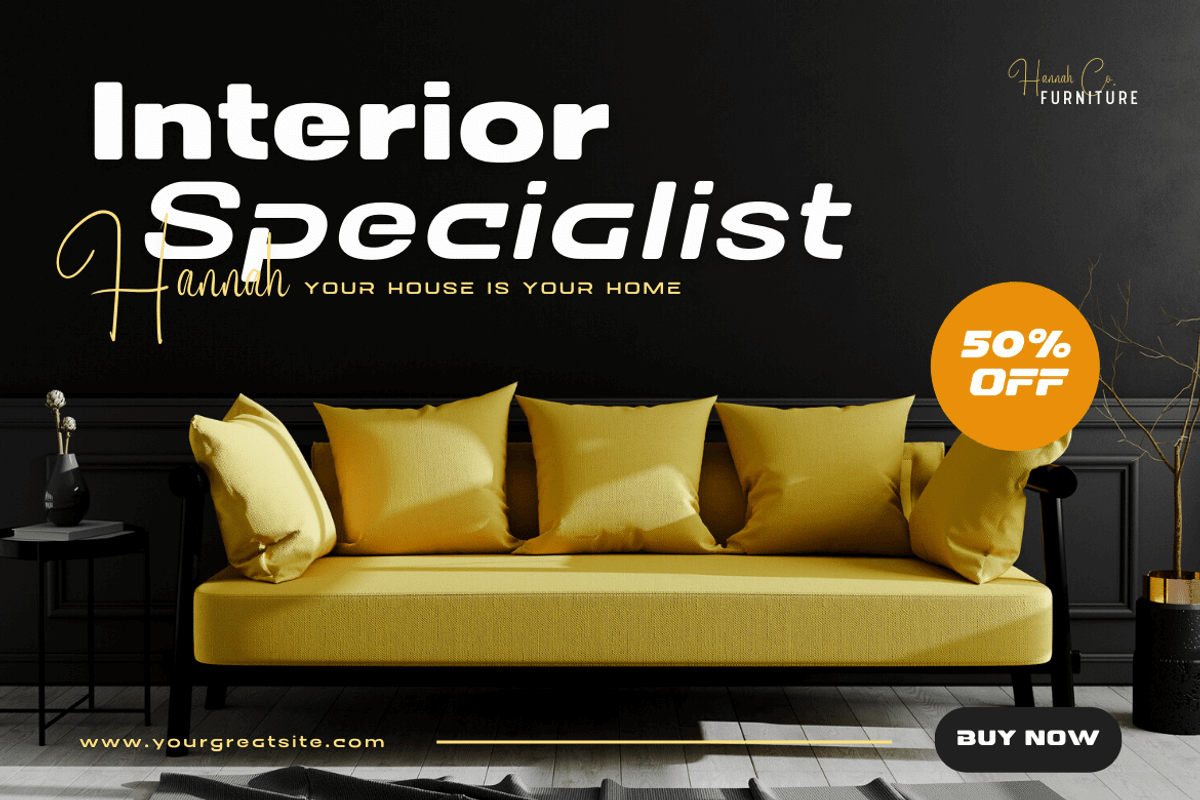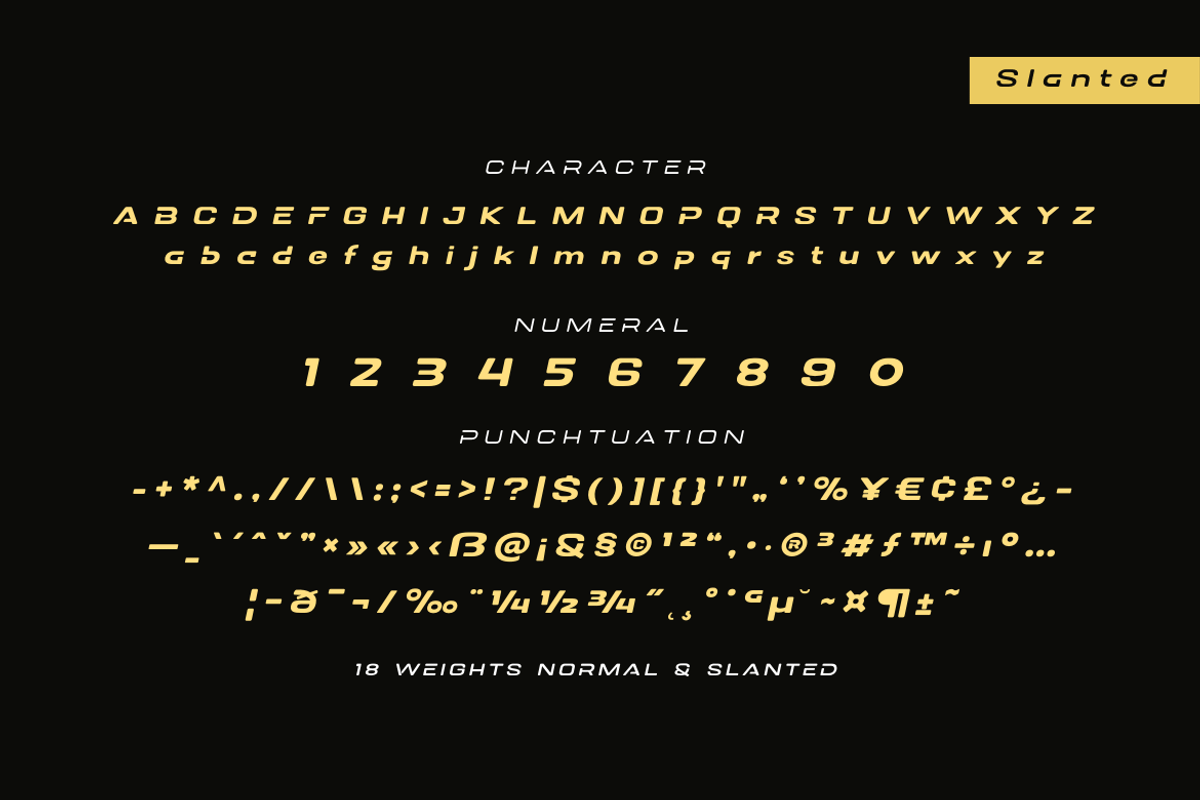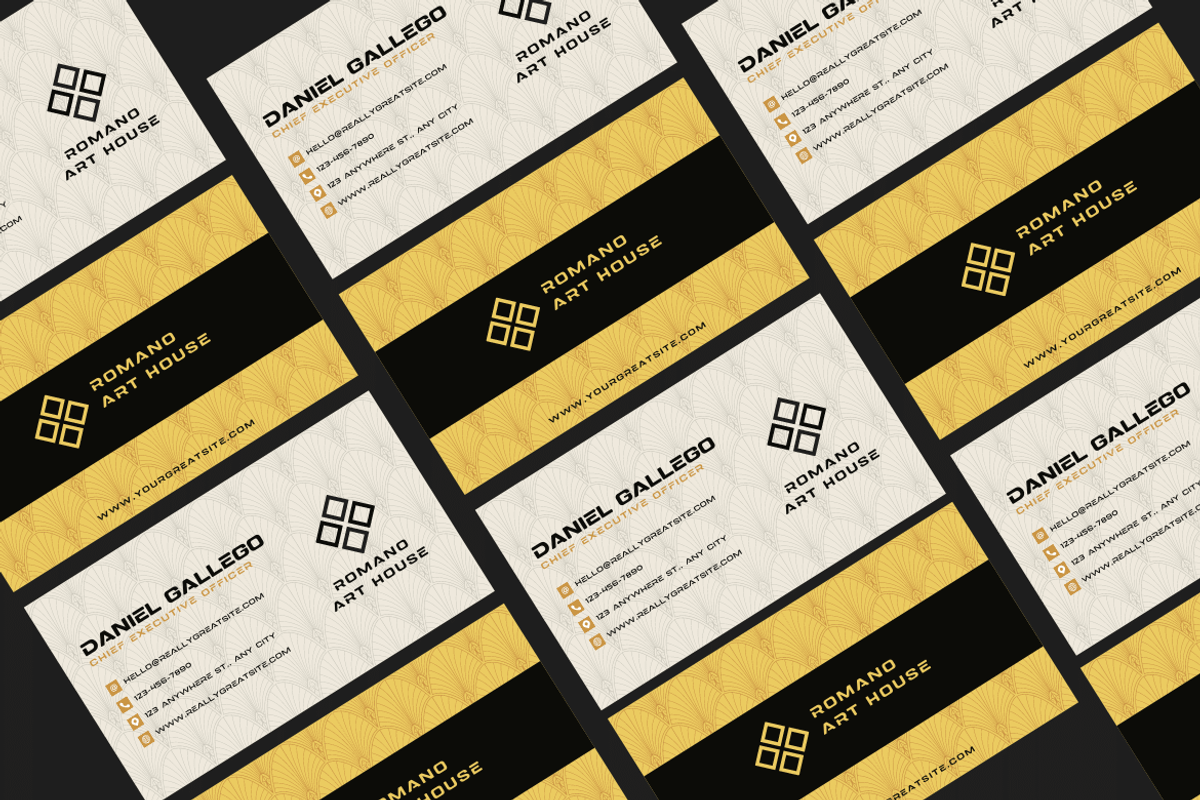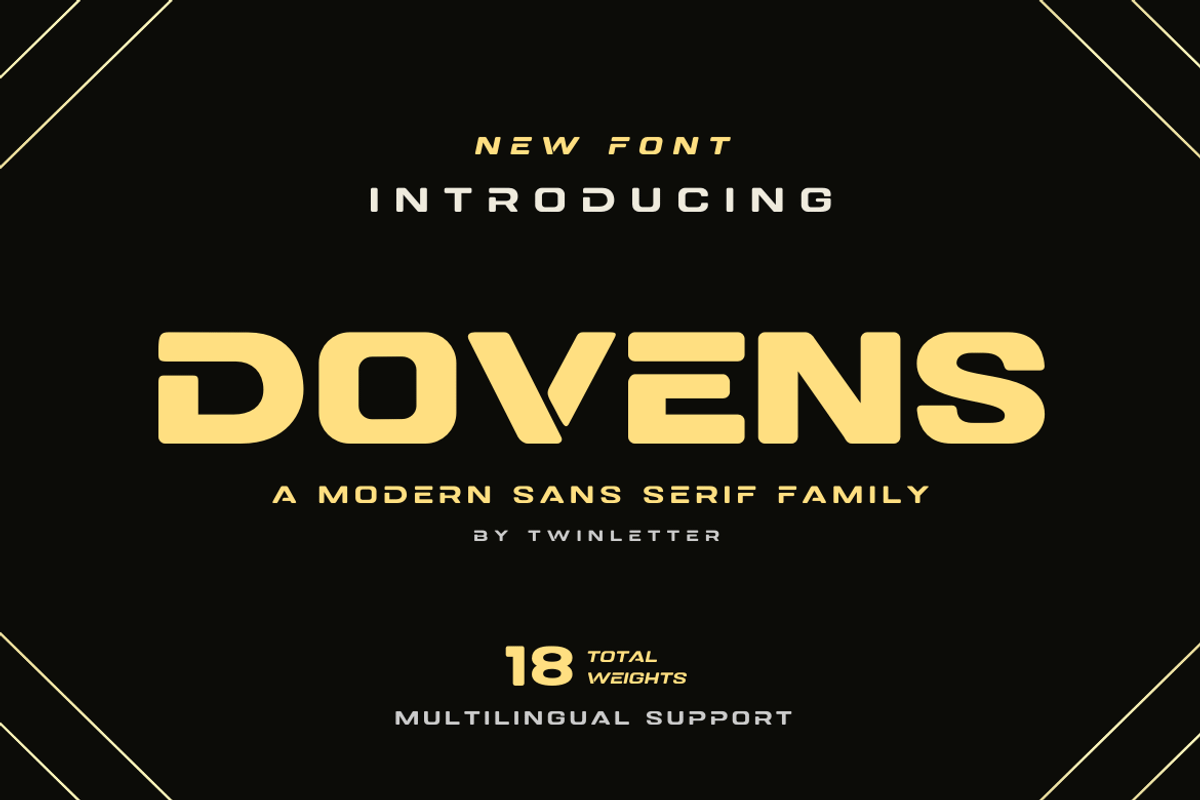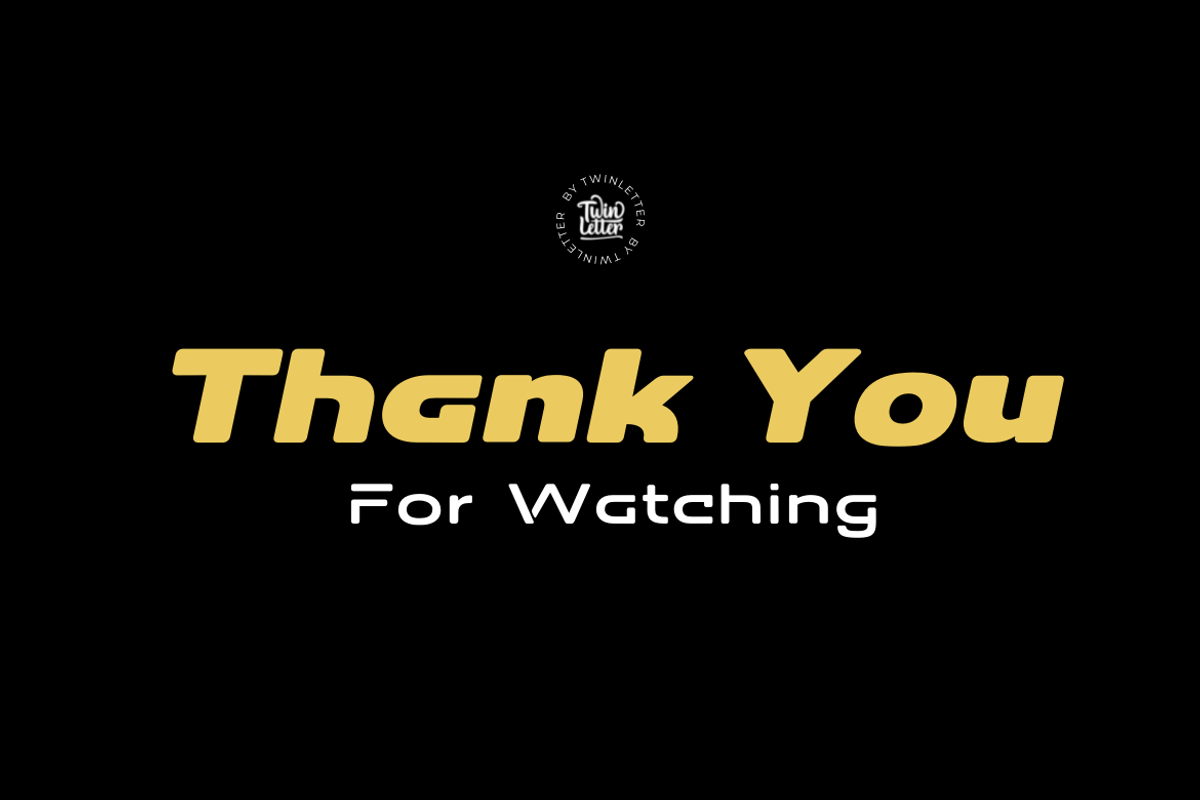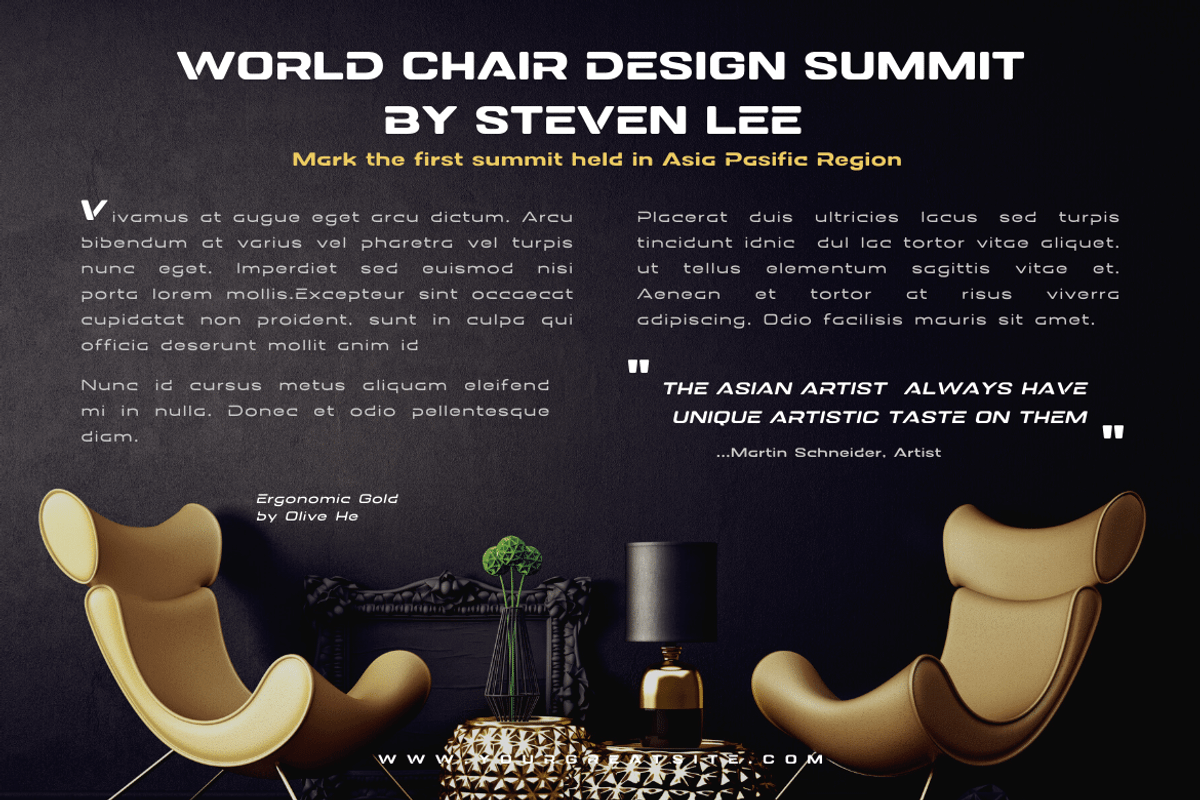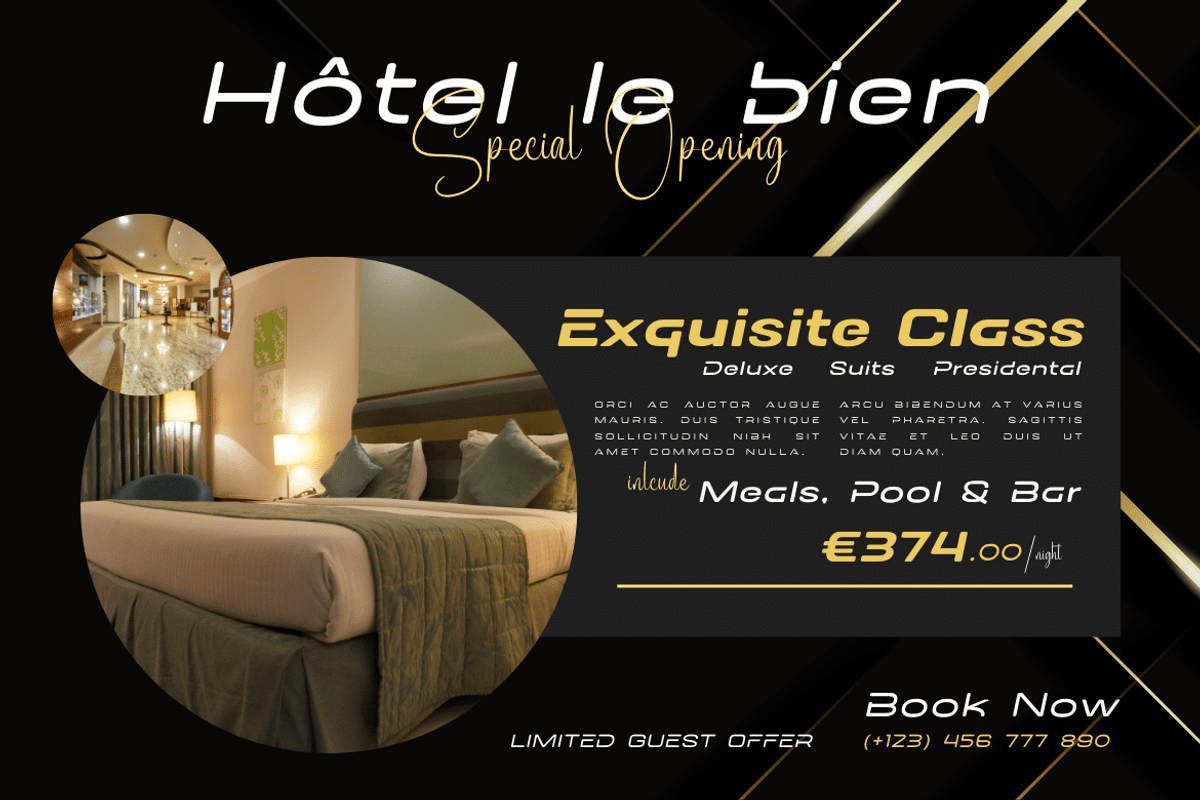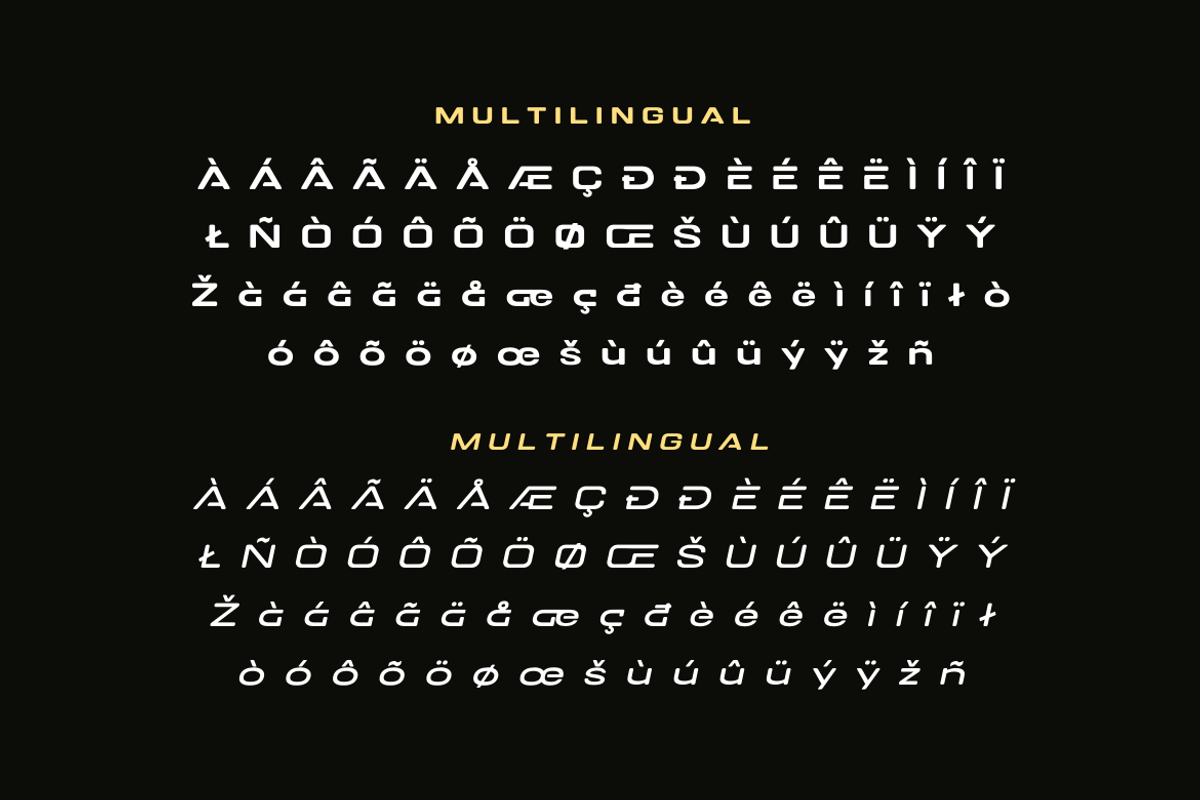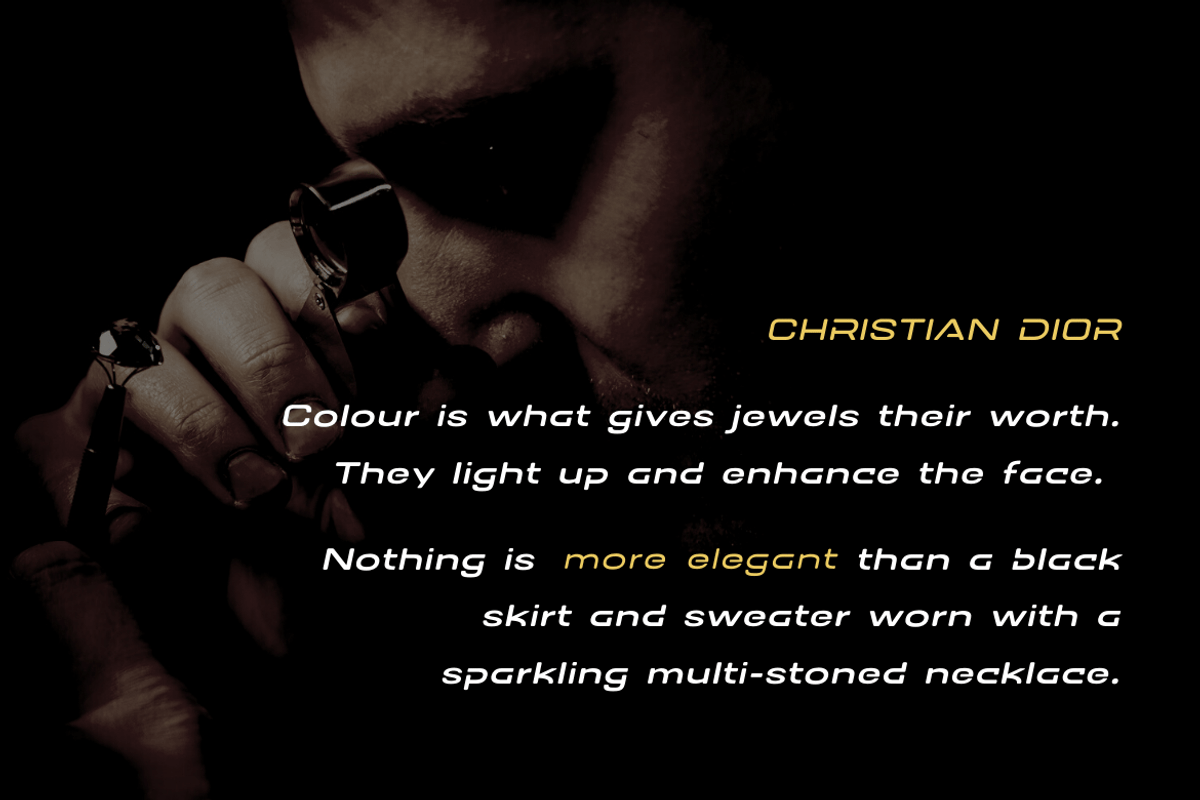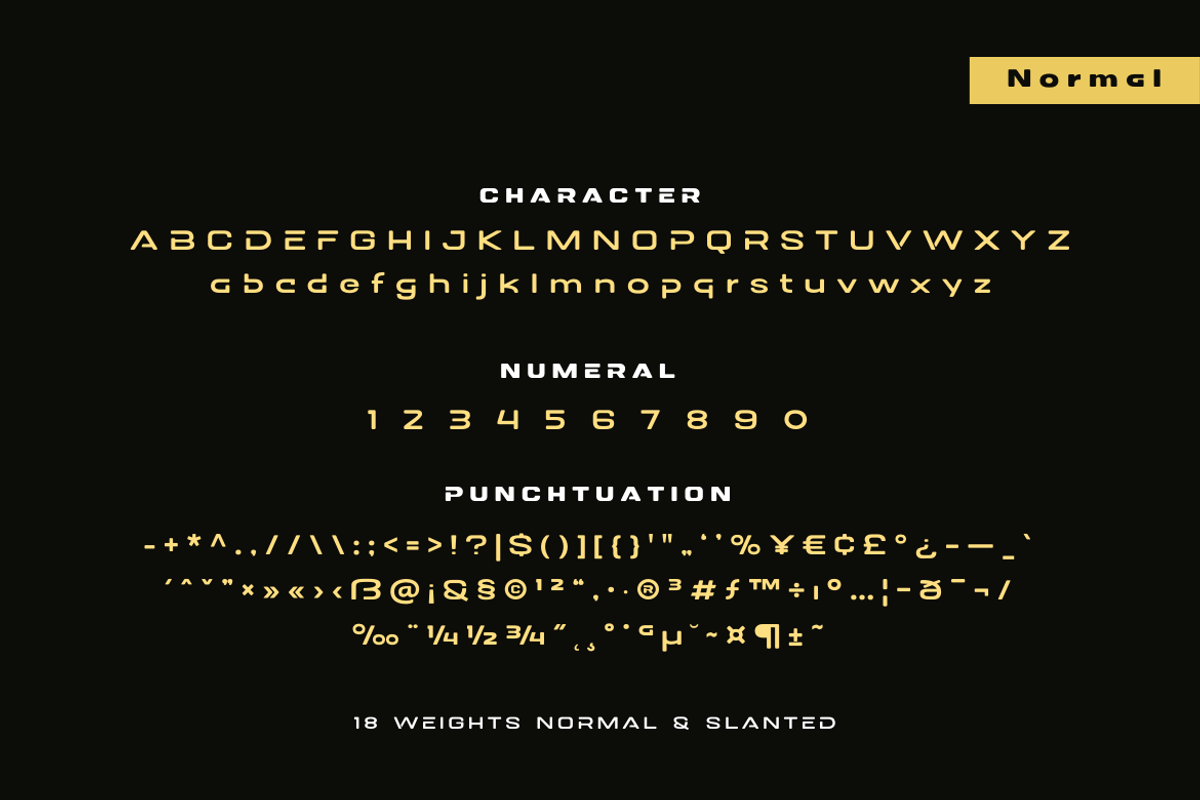
Dovens
Dovens is our newest family of san serif fonts. This evolutionary typeface was created to bring luxury and a unique feel to your designs. The collection includes 18 different styles, making them perfect for a variety of projects. This font provides unique anatomy for optimizing beauty and personality – including titles, text, large paragraphs, logos, posters, and more. Dovens has everything you need to create stunning graphics – and more importantly – leave a lasting impression on your audience.
of course, your various design projects will be perfect and extraordinary if you use this font because this font is equipped with a font family, both for titles and subtitles and sentence text, start using our fonts for your extraordinary projects.